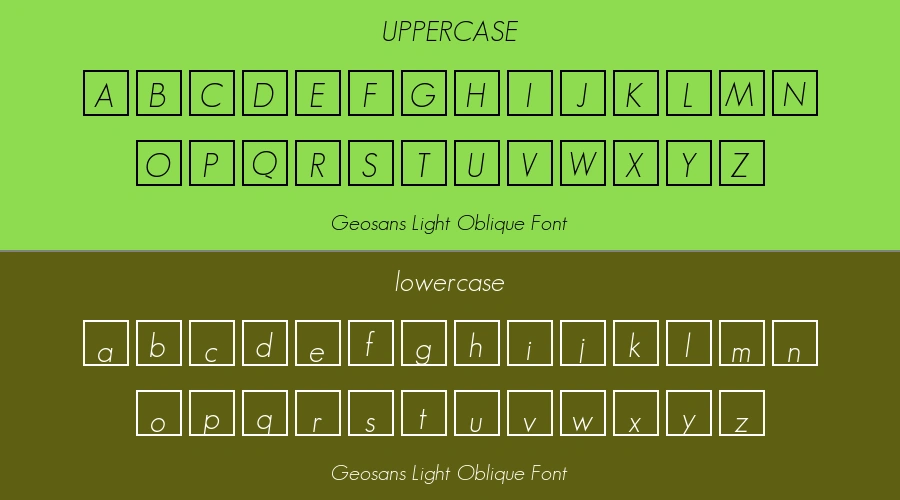
About Geosans Light Oblique Font
When typographic excellence matters most, Geosans Light Oblique Font delivers through its thoughtful blend of circular bowls and technical precision. Specially crafted for magazine layout, it offers the durability and quality certification required for sophisticated design work. Every detail serves a purpose.
The character set showcases thoughtful details like organic forms alongside functional mathematical symbols. This proves especially valuable in section headers, where emotional response directly influences results. Particular attention was paid to aperture size and standards alignment during development.